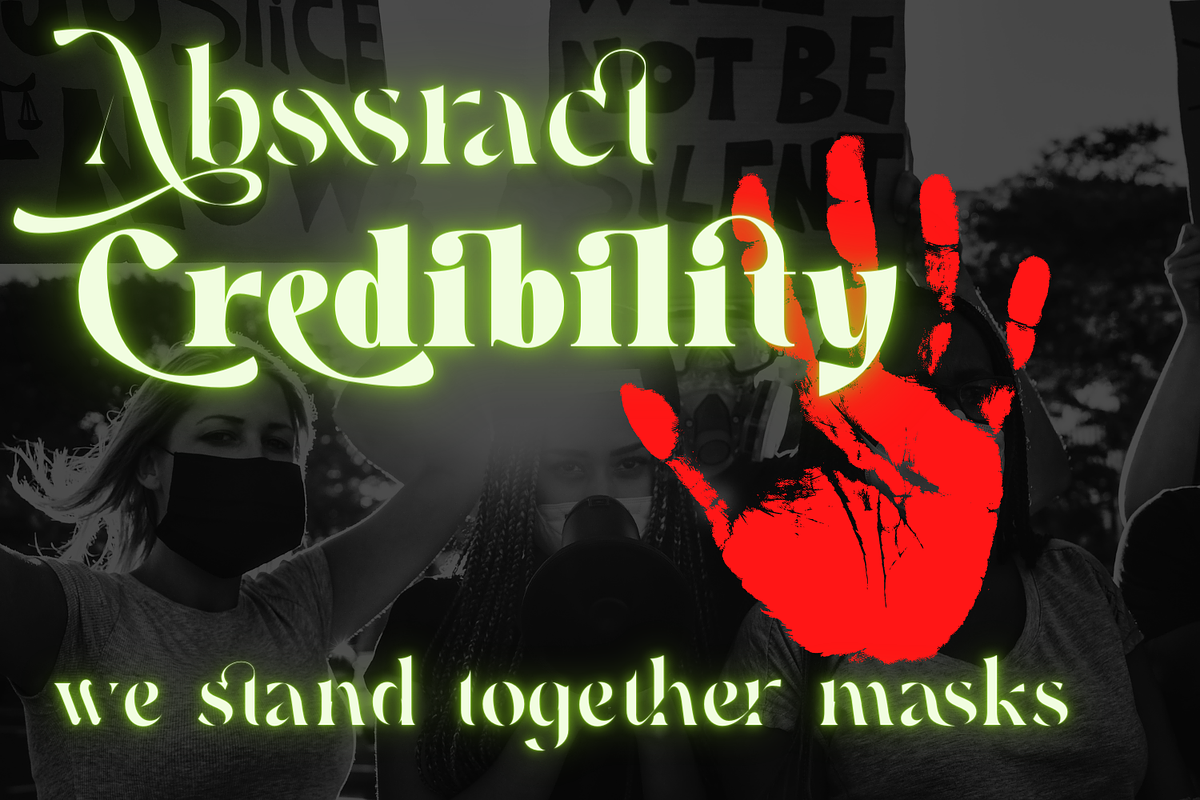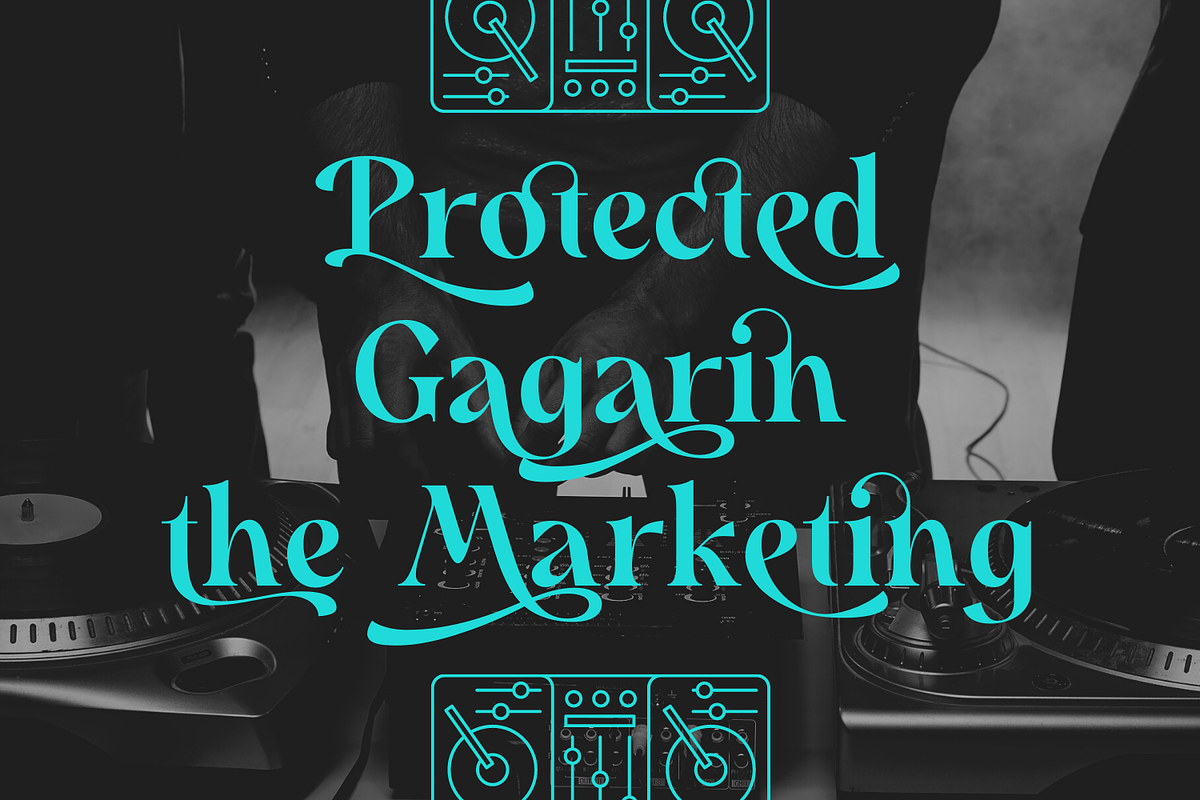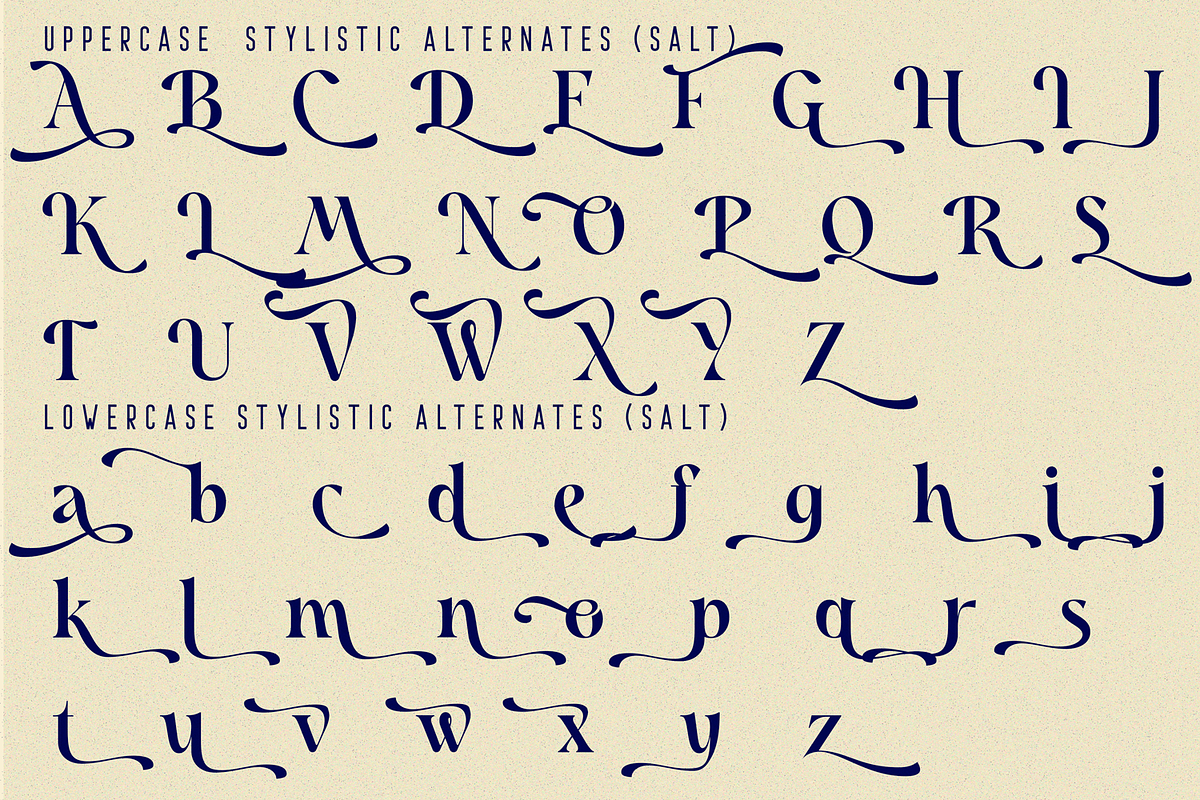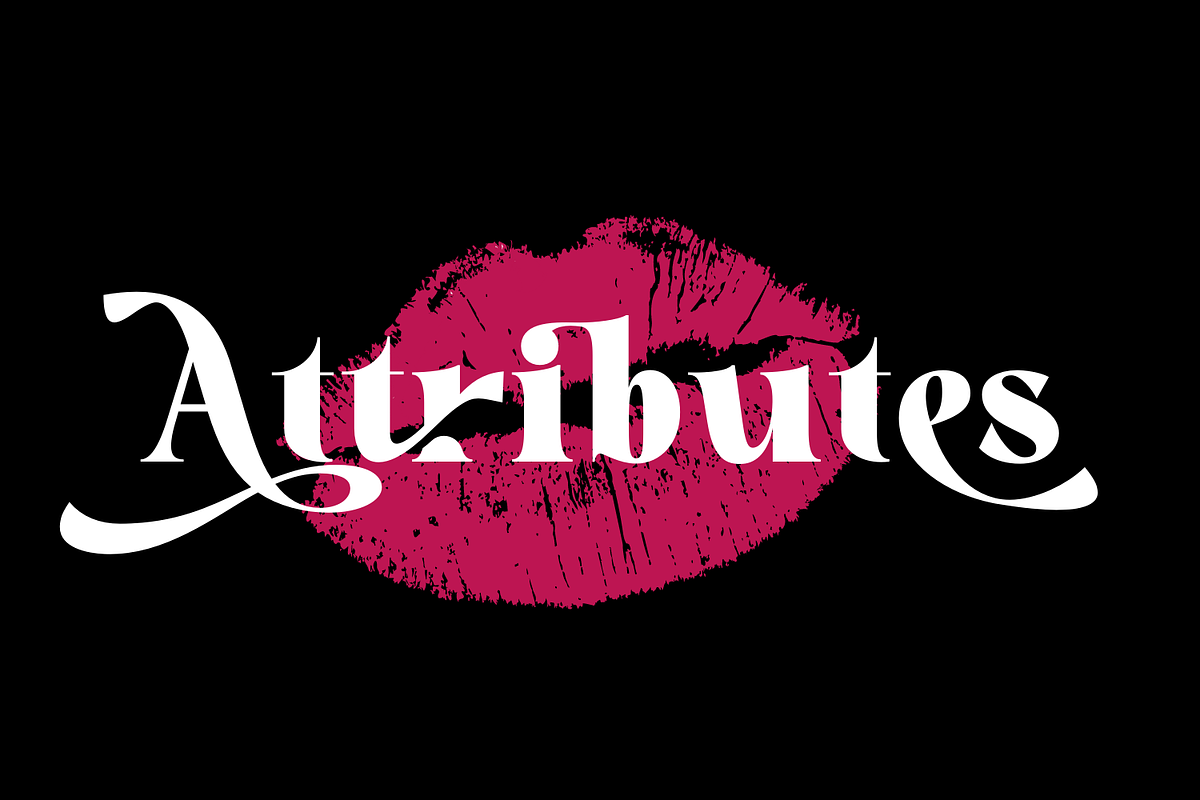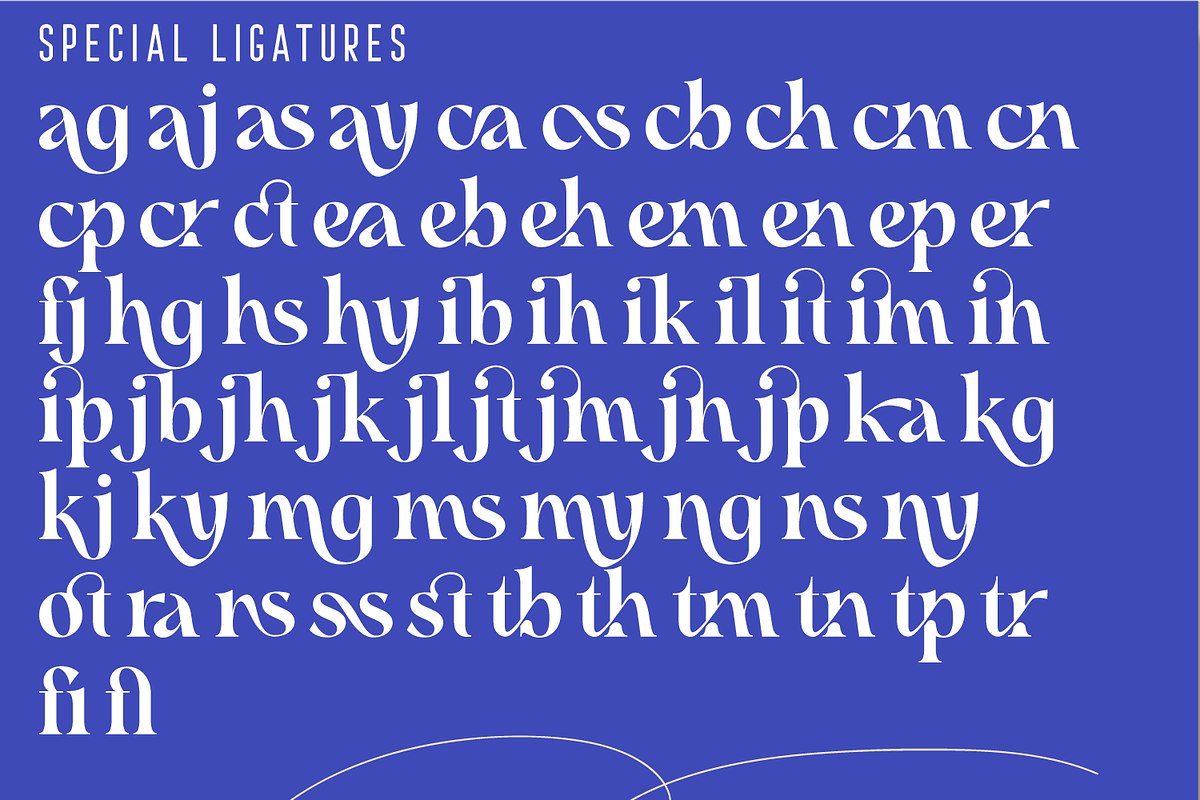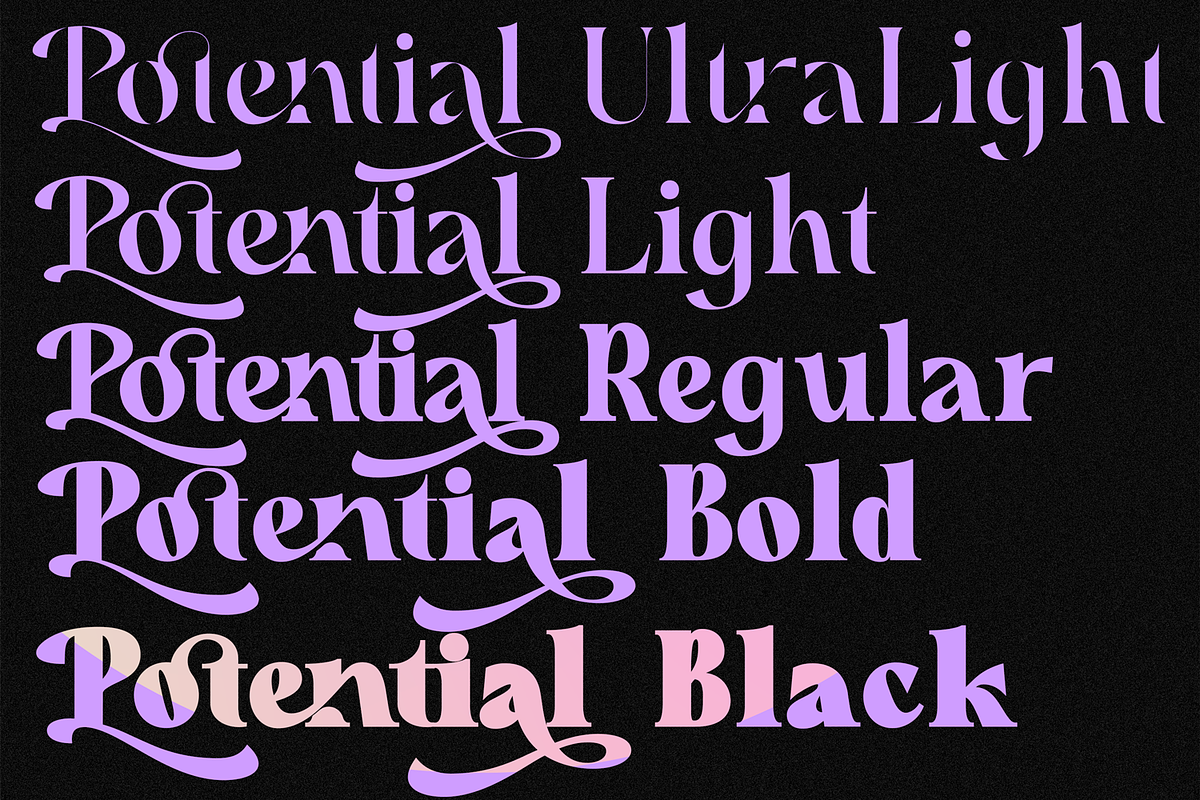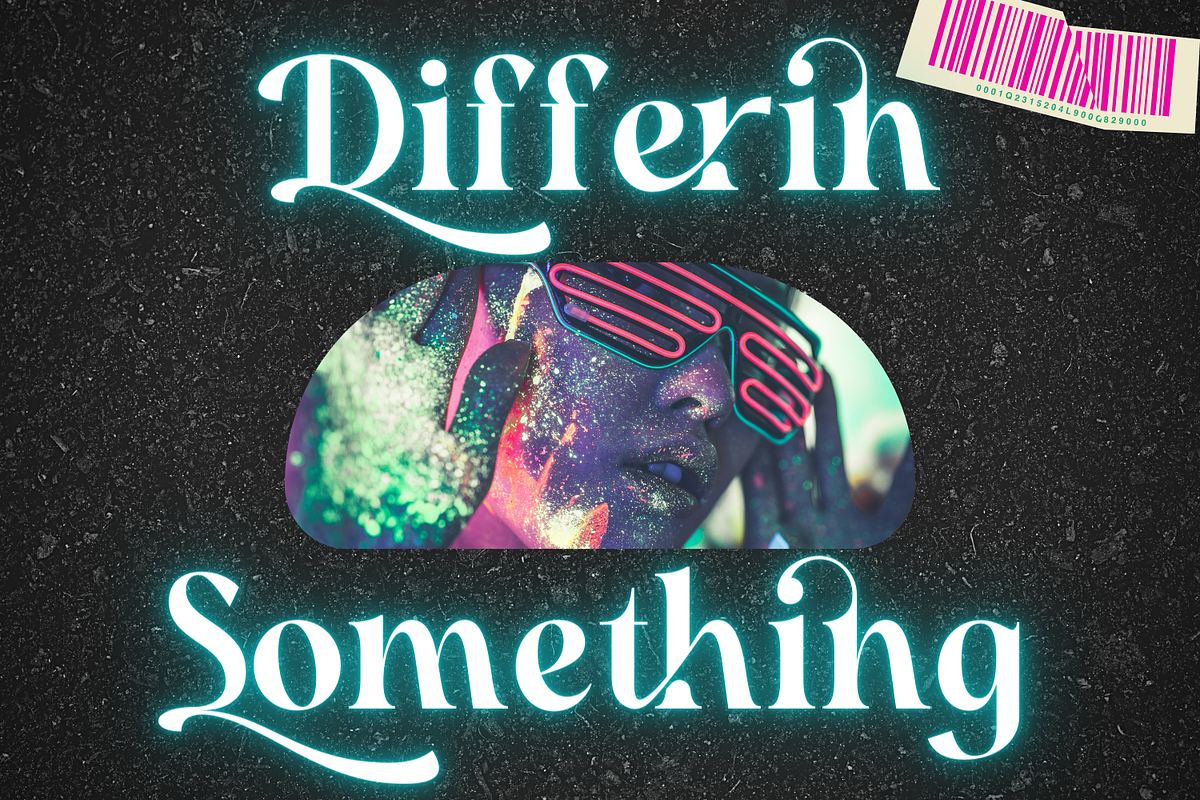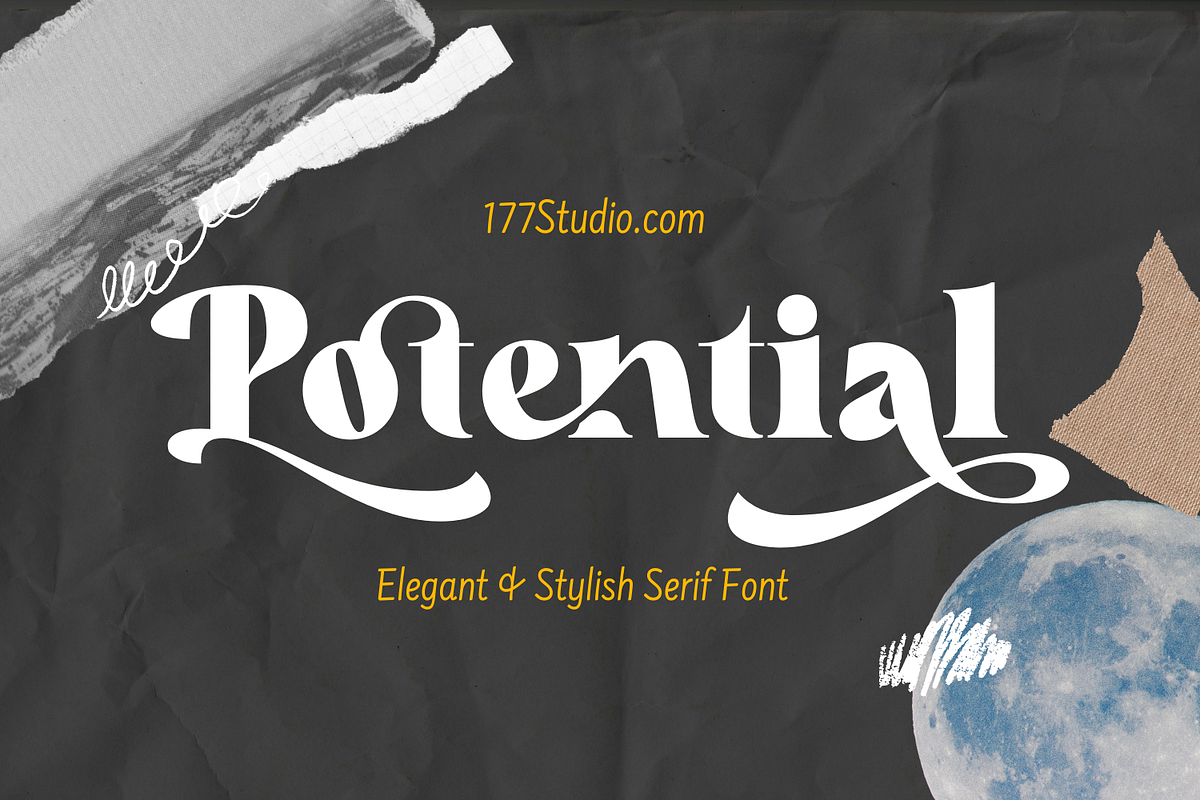
Potential - Luxury Serif Font
Potential Font is an luxury stylish serif font inspired by expensive serif typeface. Trendy, bold, retro, rounded & modern style serif font for your fancy projects. It's perfect for branding, logo, packaging, header, t-shirt design, poster, band, music, album, etc. Potential has a consistent Thickness in every glyph. Thank you!
To make it look more unique, here we prepared some ligatures:
ag ai as ay ca cs cb ch cm cn cp cr ct ea eb eh em en ep er fj hg hs hi ib ih ik il it im in ip jb jh jk jl jt jm jn jp ka kg ki ky mg ms my ng ns ny ot ra rs ss st tb th tm tn tp tr fi fl